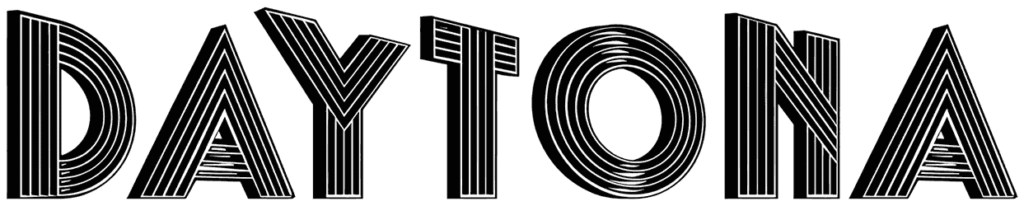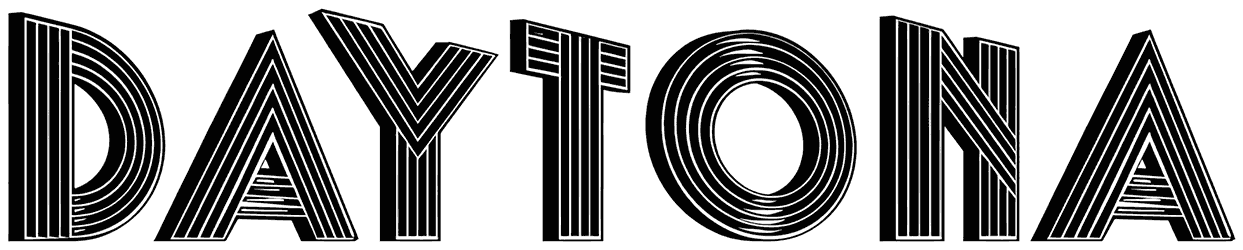
Daytona Font
Let us introduce a modern groovy font with a distinct 3D face to you. This linear font consists of bold and standing letters that can be a unique decoration to catch a lot of attention.
Daytona doesn’t have a backup of lowercase and most of the punctuation marks, but this disco font could be a worthy choice for different projects like headlines, wordmarks, covers, logos, and whatnot.